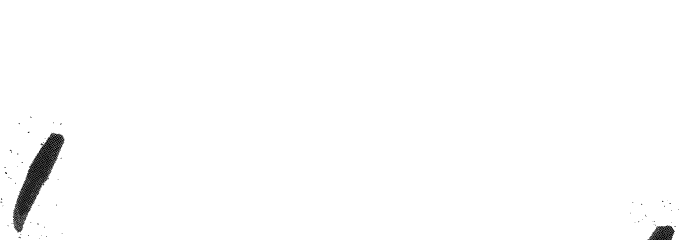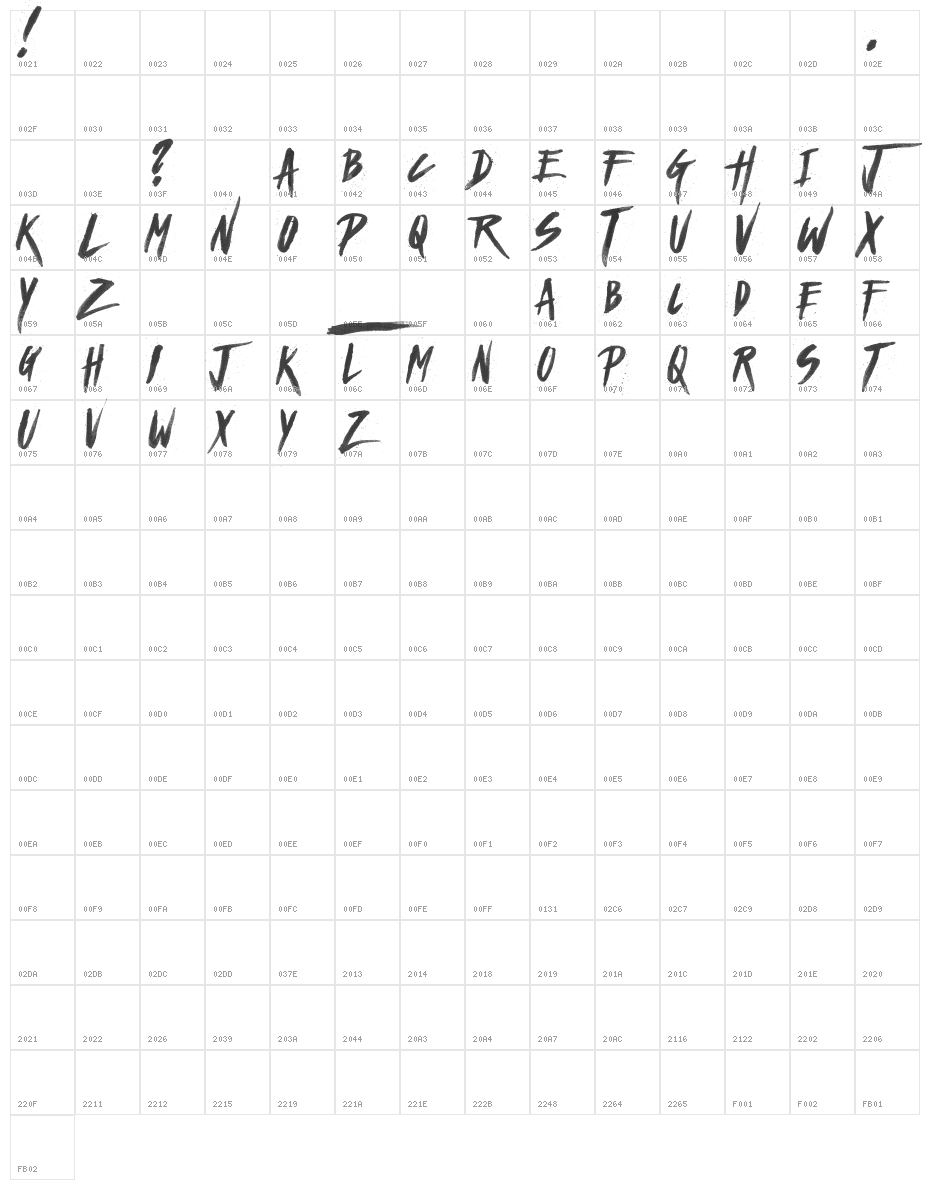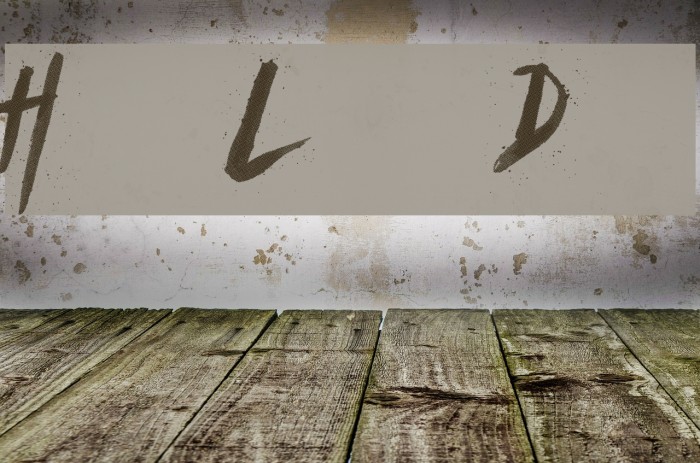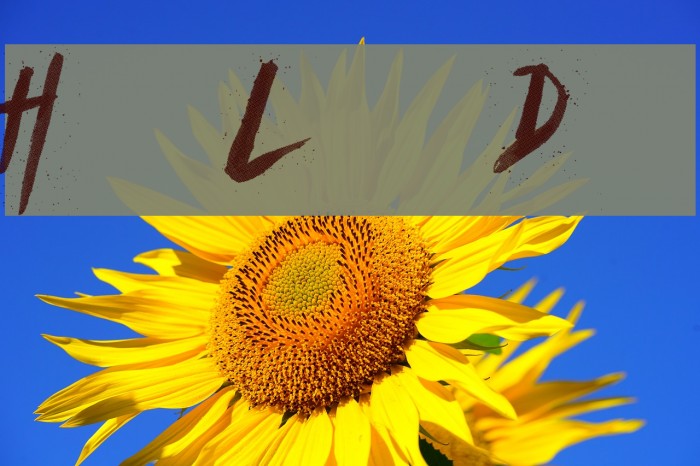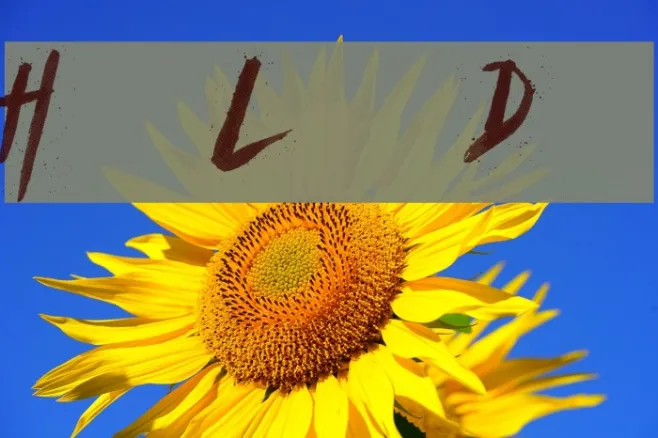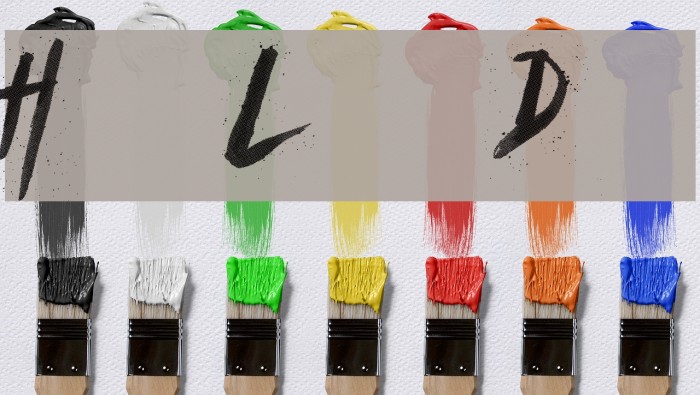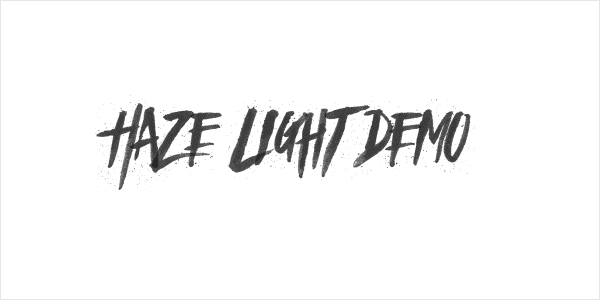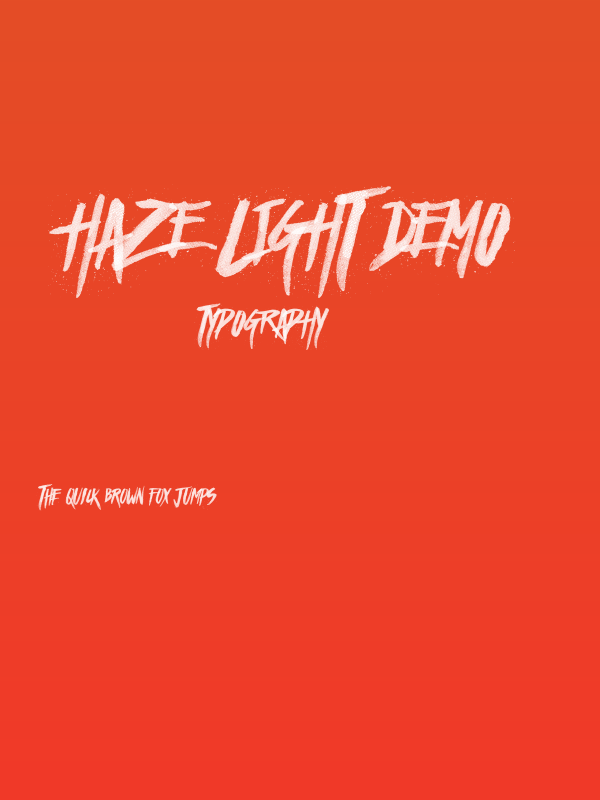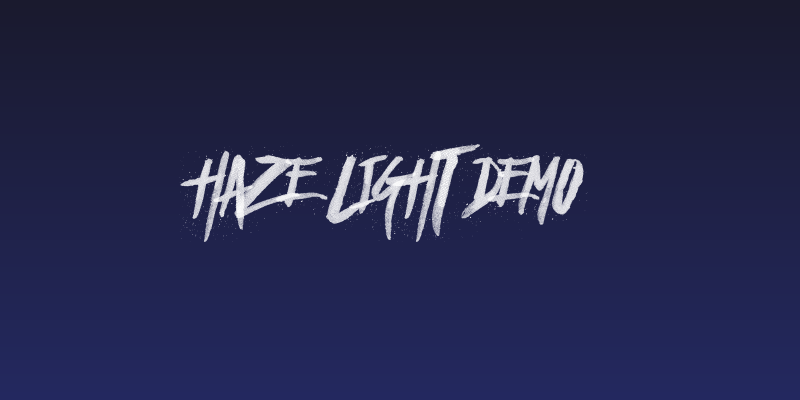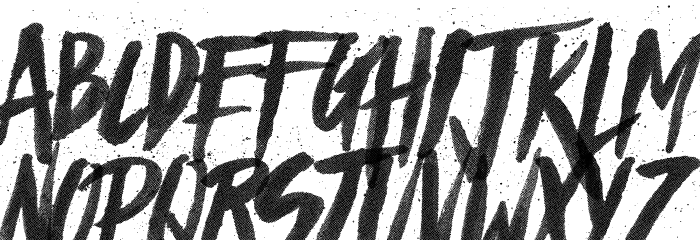
Haze Light Demo Font
Haze Light Demo Description
This font exhibits a dynamic and energetic style, characterized by its bold, brush-like strokes that convey a sense of movement and fluidity. The letters are crafted with a hand-drawn aesthetic, featuring irregular edges and varying stroke widths that add to its expressive nature. The uppercase and lowercase letters maintain a consistent flow, while the numbers and special characters integrate seamlessly into the overall design. The font's artistic flair makes it suitable for projects that require a touch of creativity and individuality.